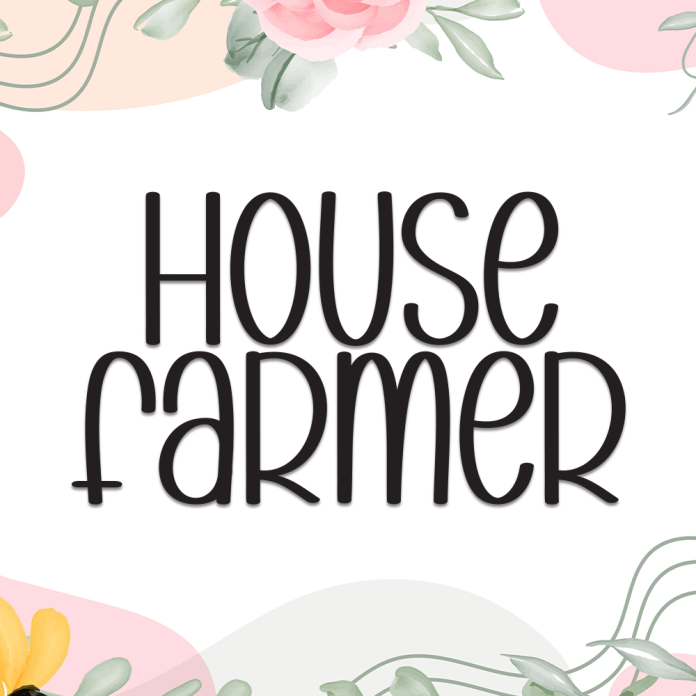
House Farmer is a warm and rustic display font that brings the charm of the countryside to your designs. With bold, handcrafted letterforms, this font is perfect for projects that need a down-to-earth and homegrown feel.
Perfect for organic product labels, farm logos, packaging, rustic signage, DIY projects, and eco-friendly branding, House Farmer adds a natural and authentic character to your creative work.
Bold Display Style
Rustic & Homey Aesthetic
Bring the spirit of the farm and the comfort of home into your designs with House Farmer.